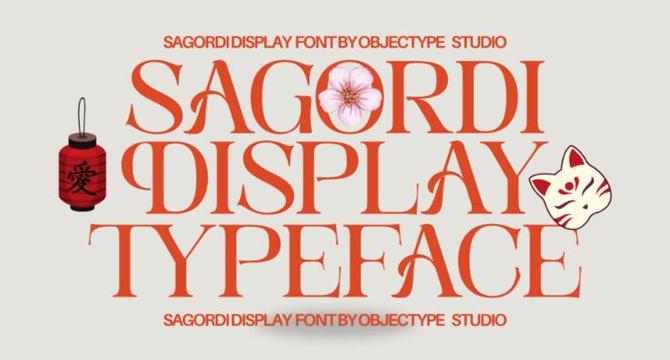
Sagordi is a stunning display font that combines class and beauty with a mix of classic and fresh curves.The font is popular in high-end brand materials, fashion magazines, and luxury product packaging where making an impression is essential.Sagordi offers flexibility with creative letter variations, connected character pairs, and dramatic flourishes for custom designs.It is ideal for conveying luxury subtly and adding personality to headlines or designs, setting a visual tone before the text is even read.